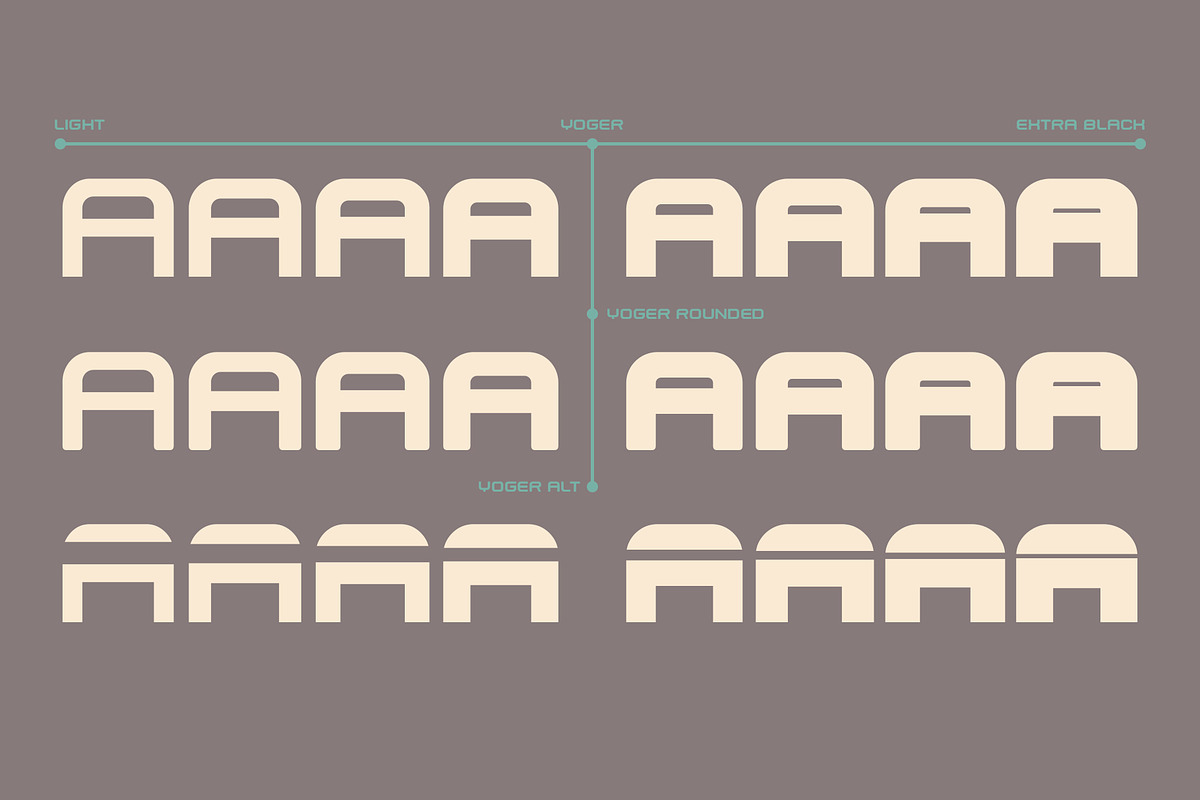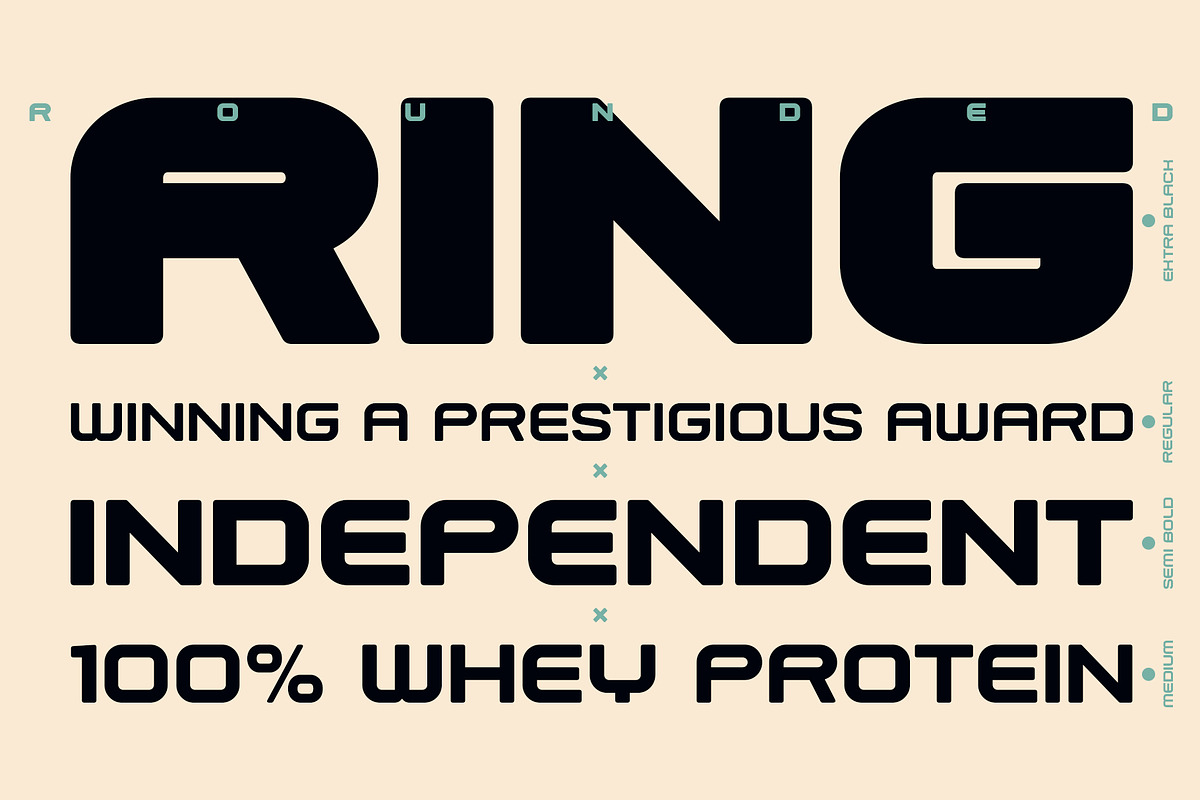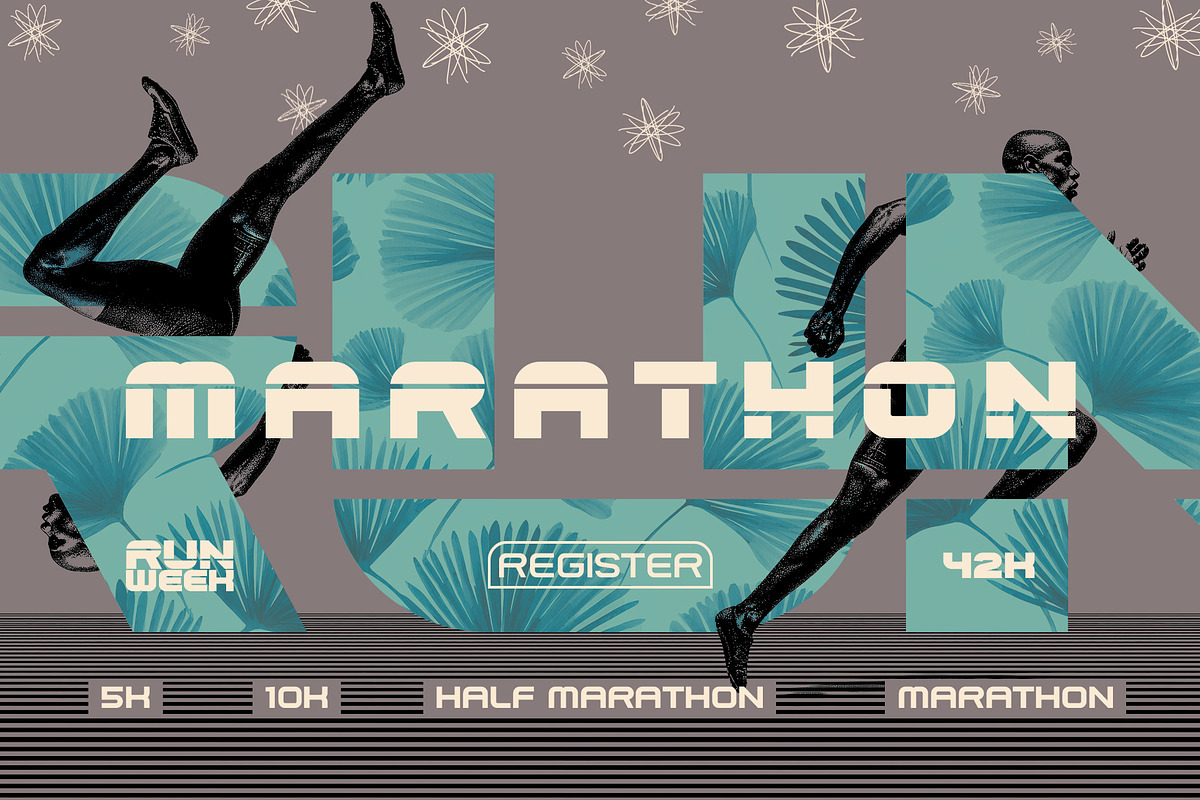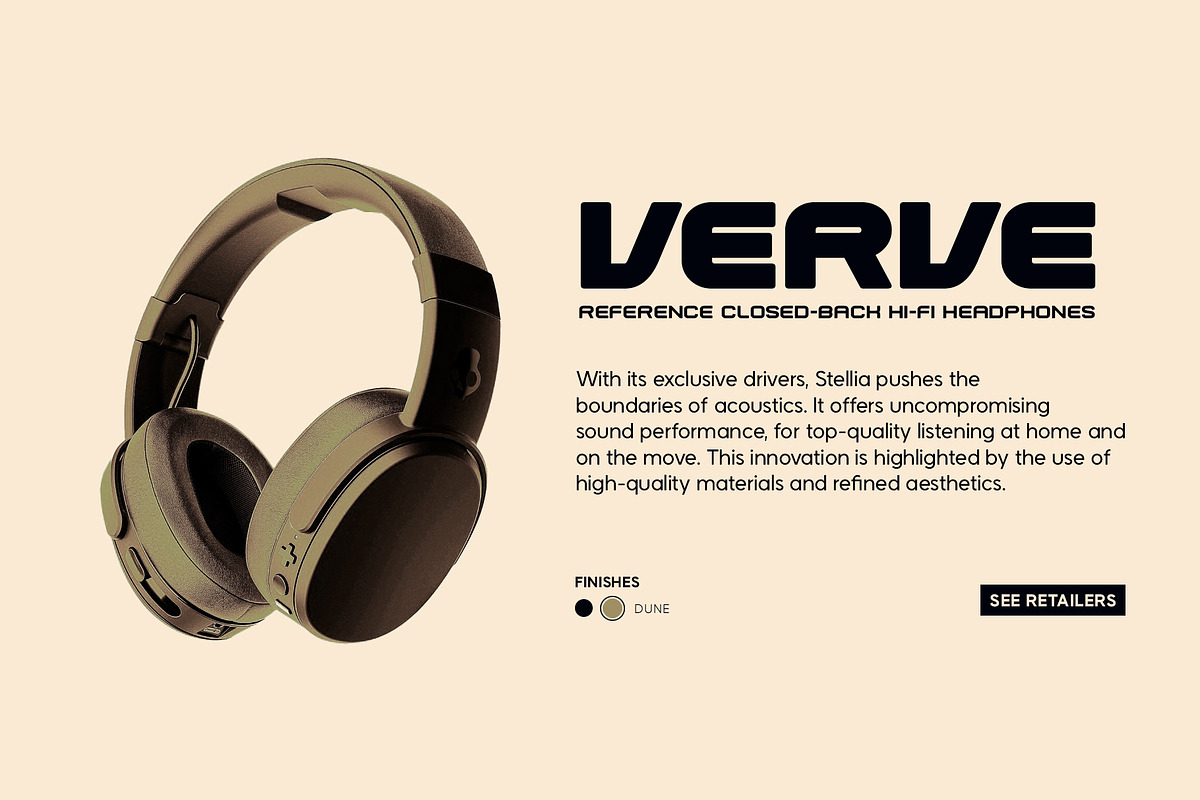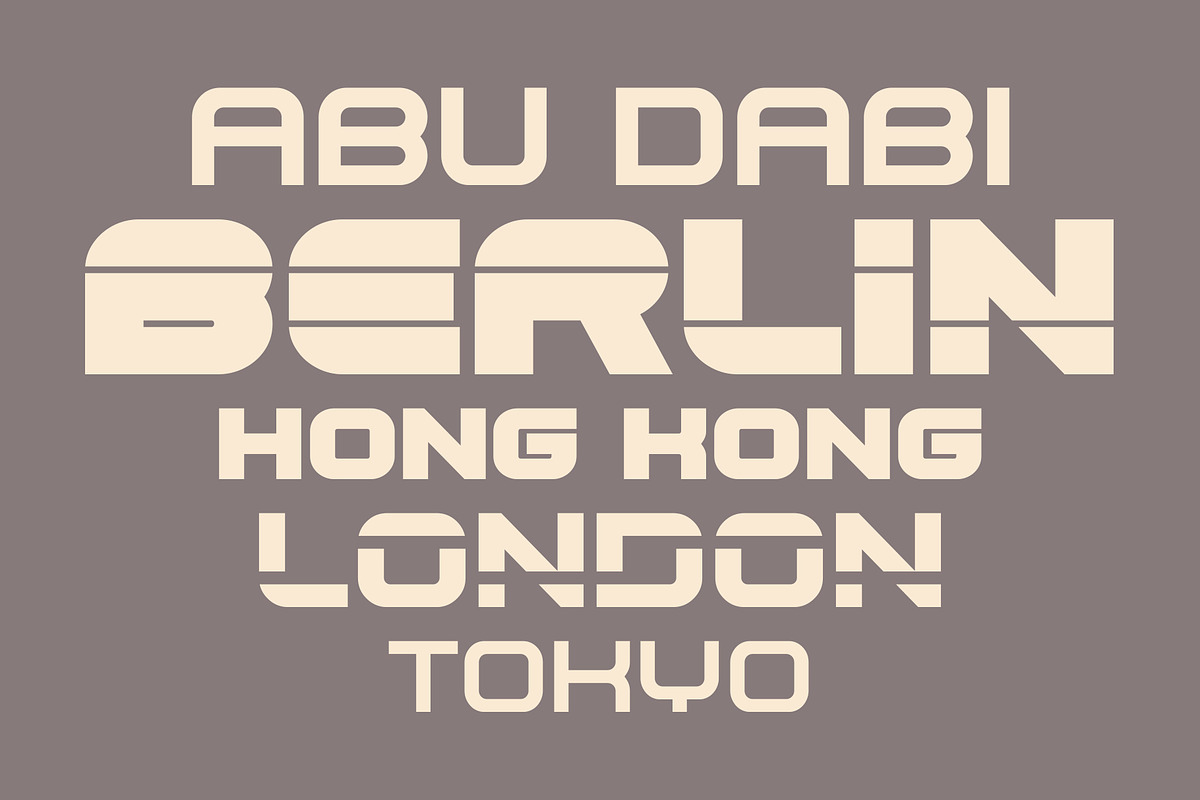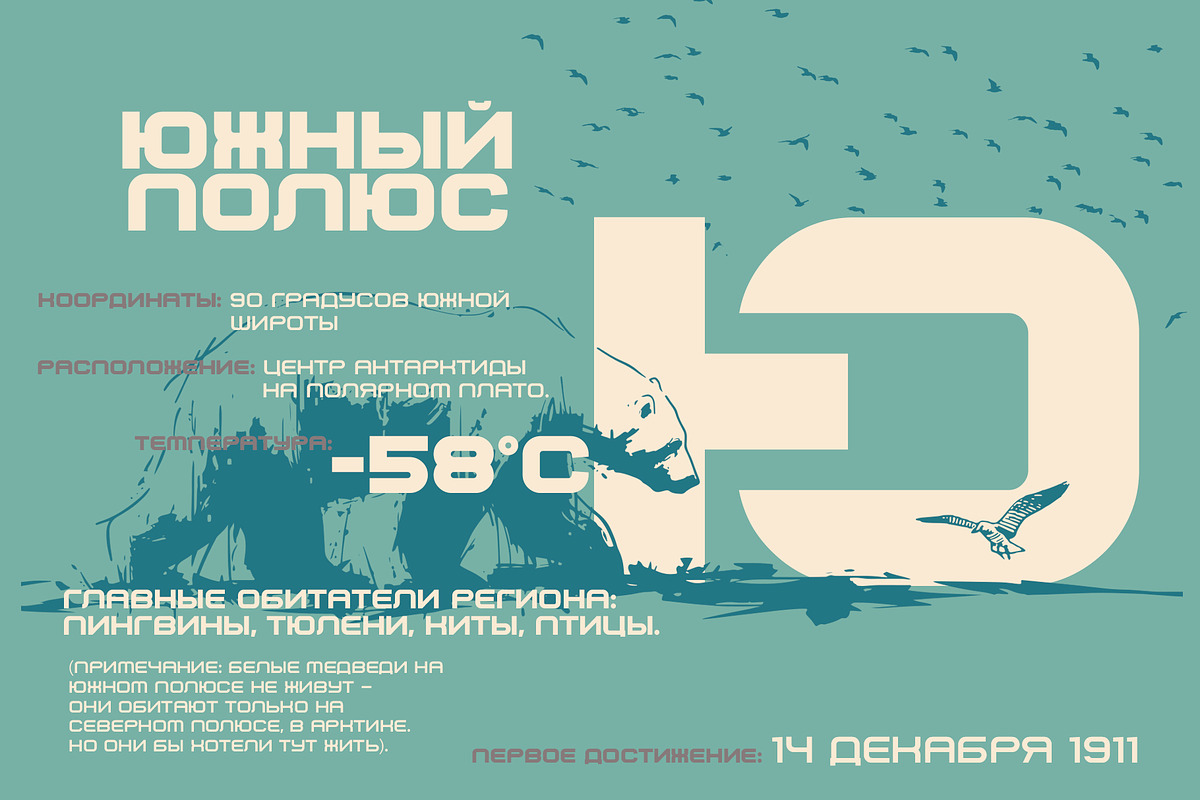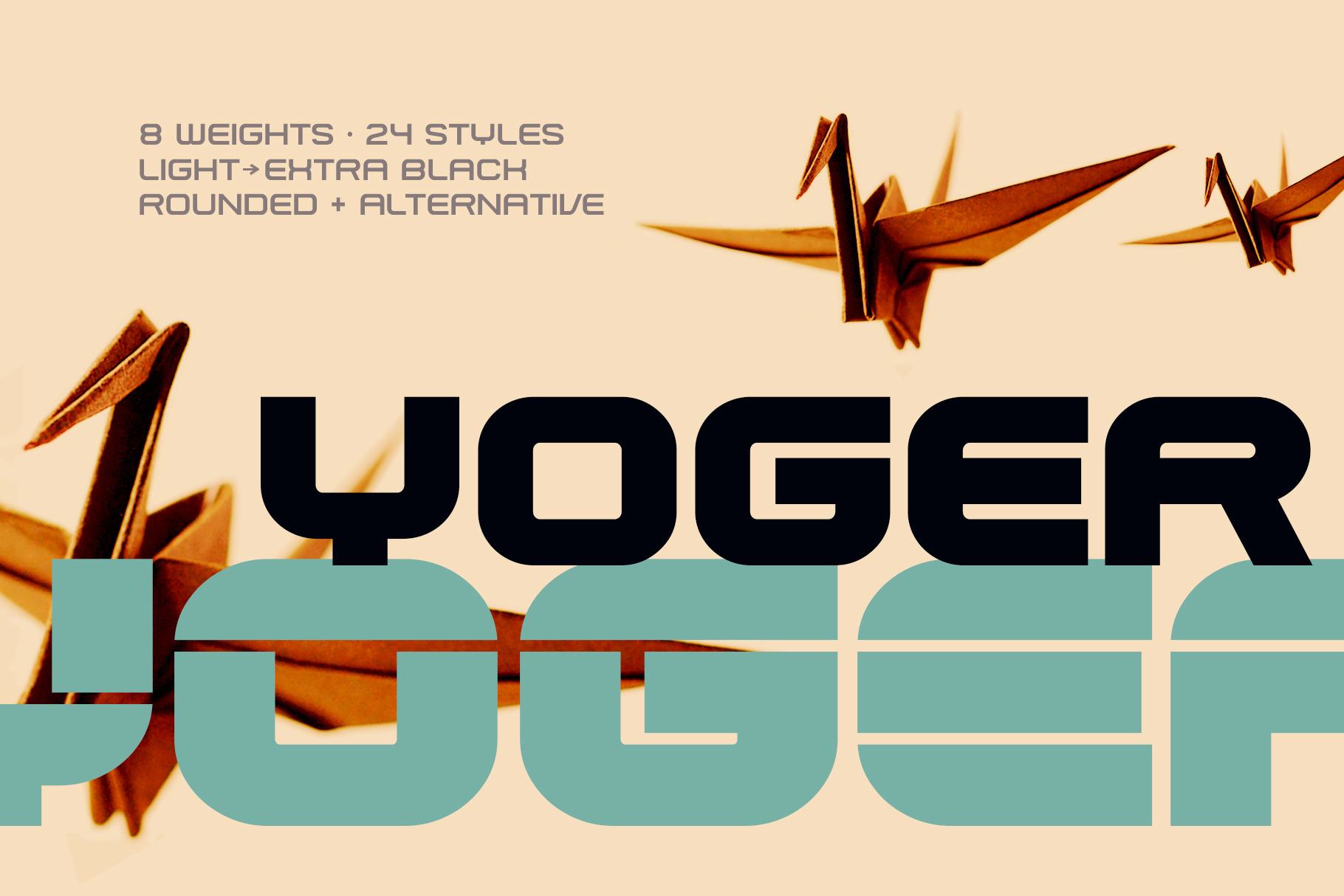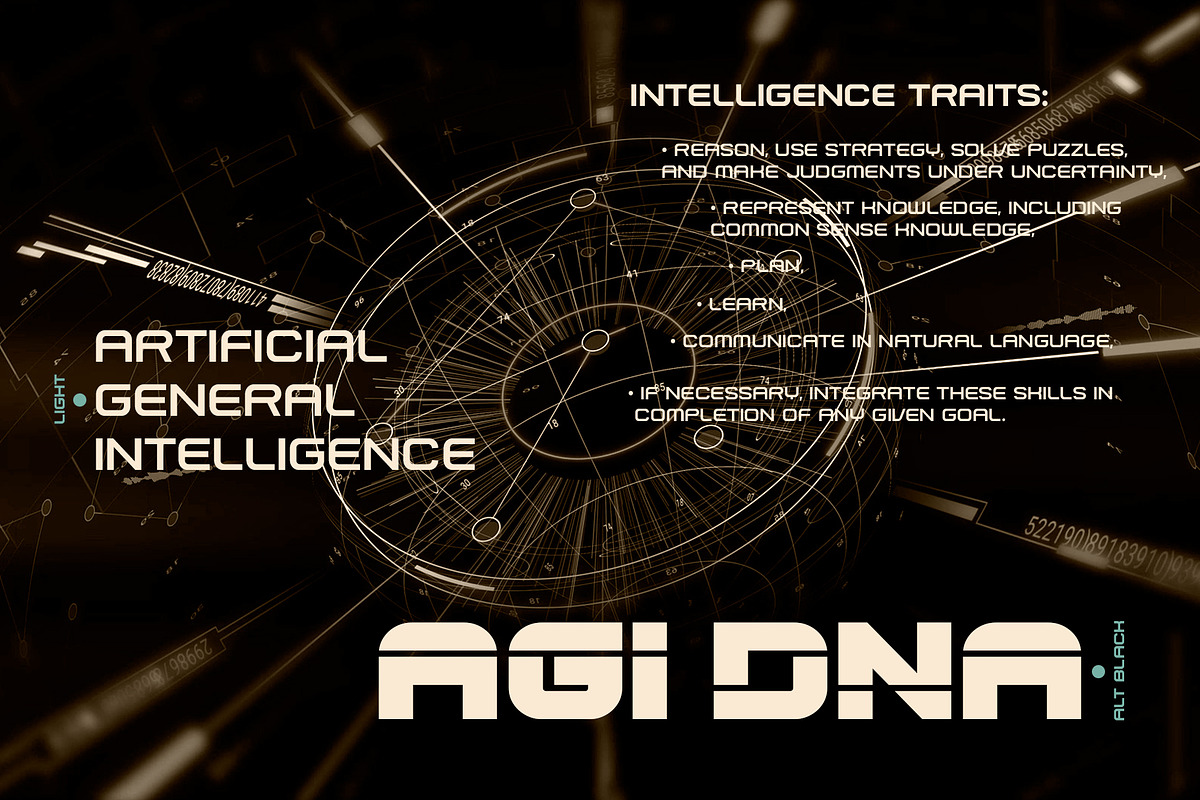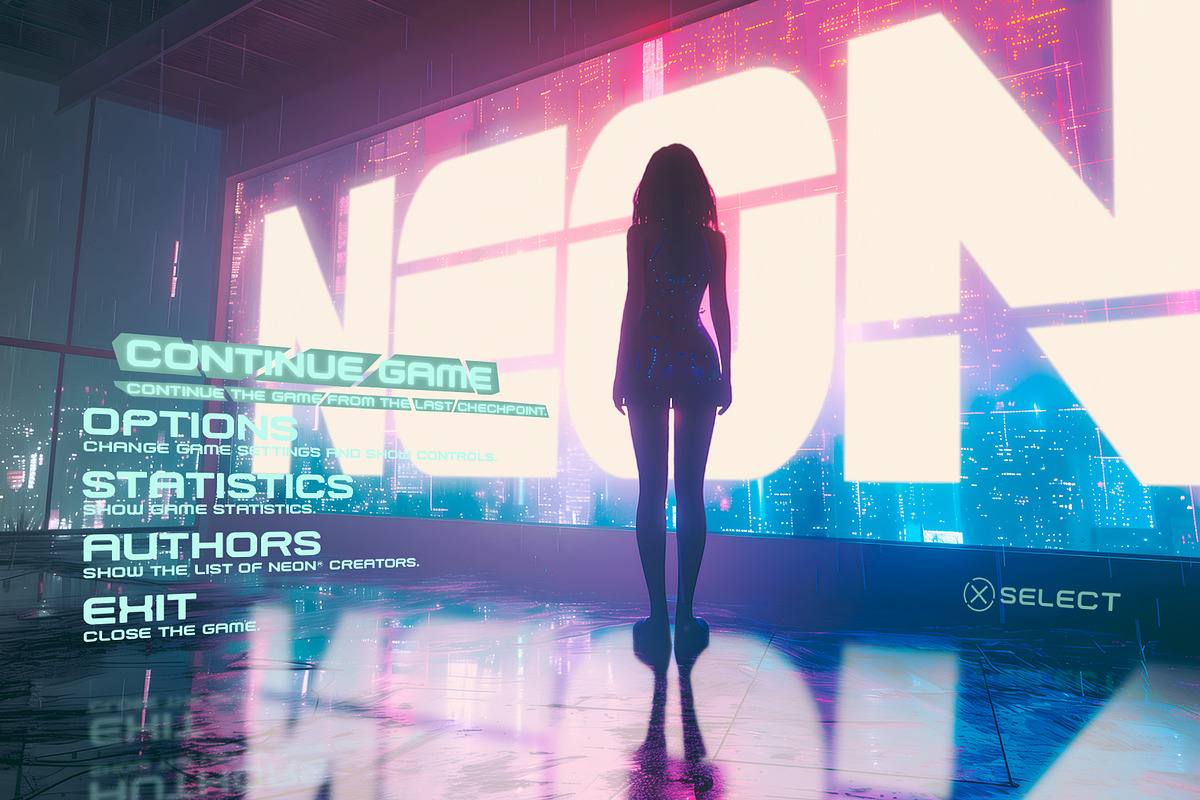
Yoger — Logo display font
Yoger is an uncompromising display typeface built for impact. With thick, confident strokes and deliberately wide letterforms, it commands attention the moment it appears — raw, powerful, and unapologetically bold. Fueled by the raw intensity of brutalist architecture and industrial forms, Yoger delivers a presence that feels both industrial and contemporary.
The family contains 24 styles — from refined Light for large-scale statements to crushing Extra Black for maximum force. Every style is engineered for headlines, posters, branding, packaging, and any context that demands to be noticed.